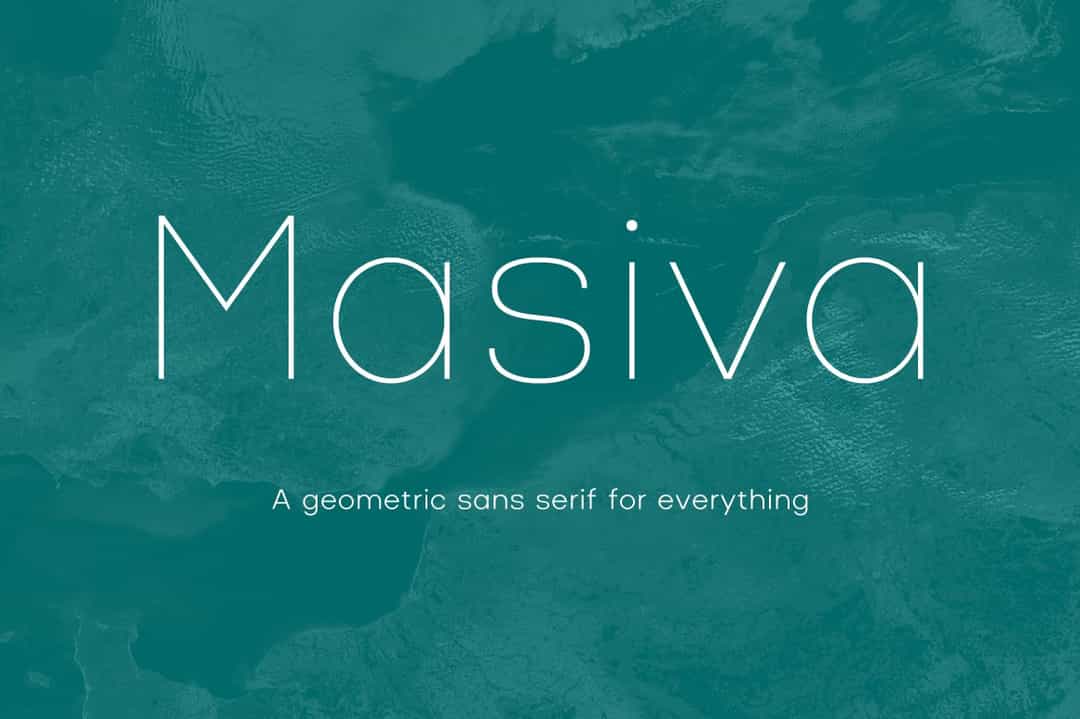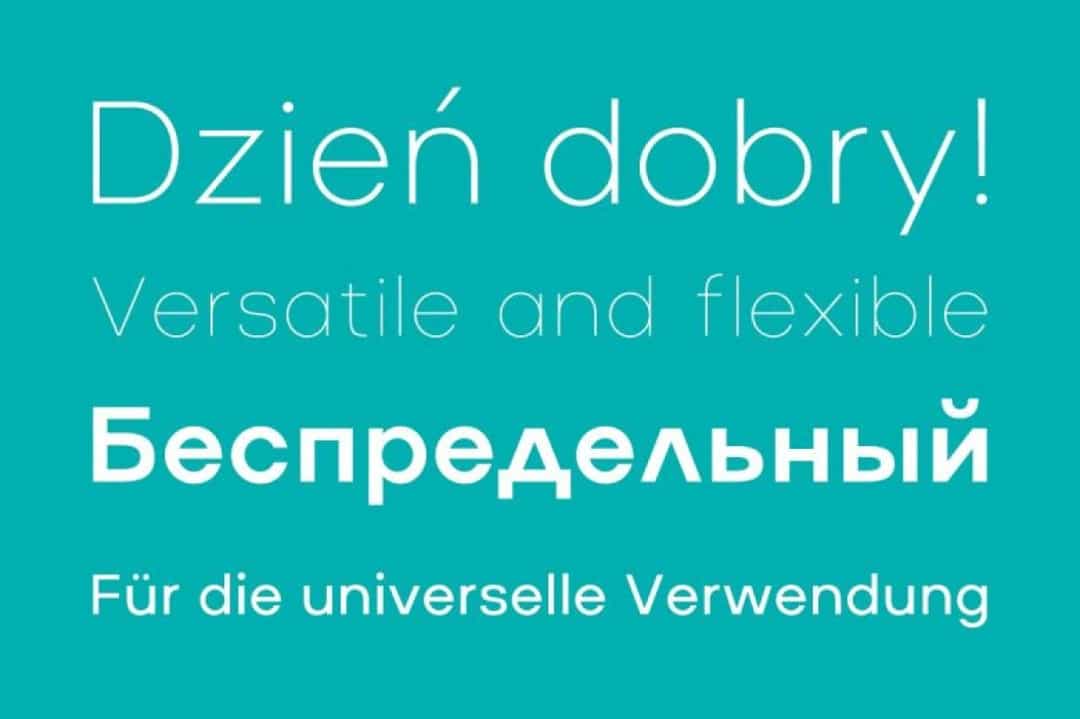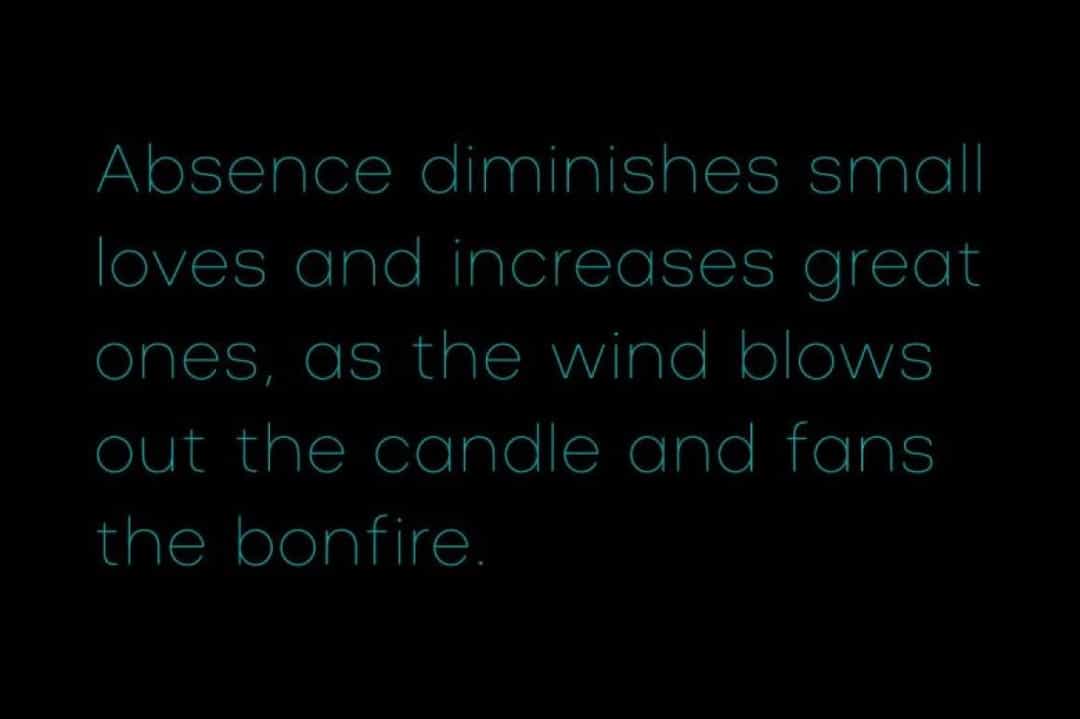
Masiva Sans Font Family, designed by Pablo Balcells and released through Graviton Font Foundry in 2018, is an organic sans serif typeface with carefully designed curves, offering an elegant and pleasing aesthetic. With its universal shape it can accommodate text of any size or length – making it an excellent display typeface in large dimensions.